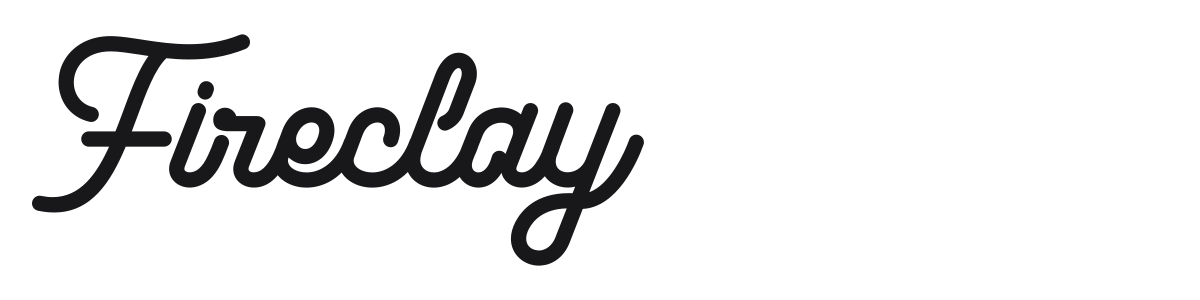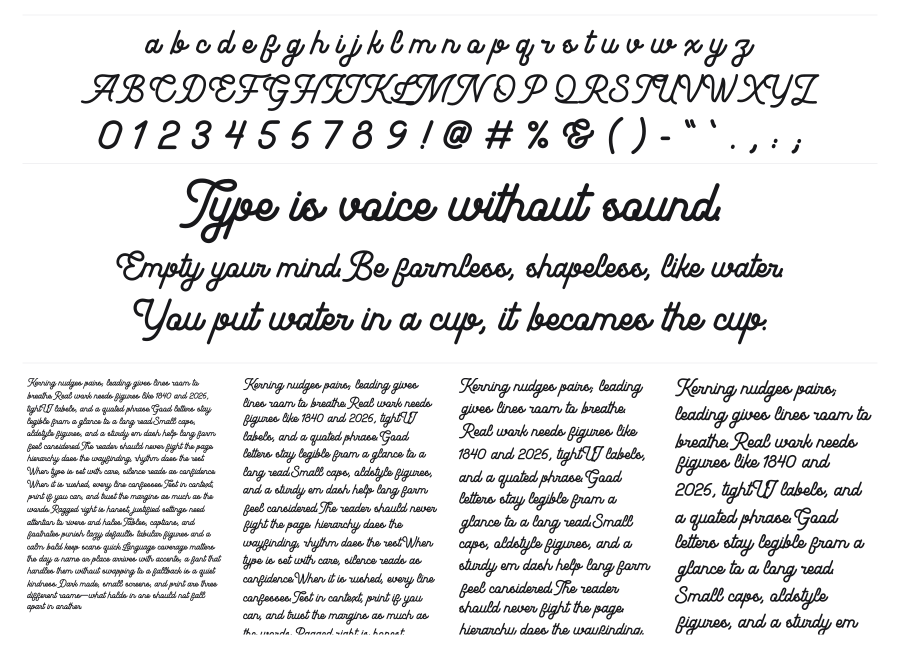
Fireclay
Fireclay is a bold connected casual script with smooth, looping strokes that flow in an unbroken chain across the baseline. It draws from mid-century sign-painting traditions, with confident rounded terminals and a warm, hand-lettered energy that feels neither stiff nor sloppy. It works best at large sizes where the continuous rhythm of the connected letters can breathe.